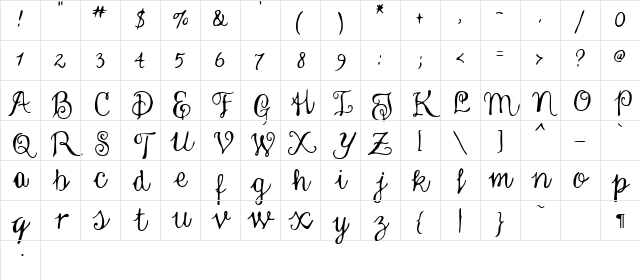
Romantic Regular Free Font
Romantic Regular
Romantic Family
Romantic Regular
Design Context for Romantic
Romantic is a composed and adaptable typeface that performs quietly and consistently across a wide range of design contexts.